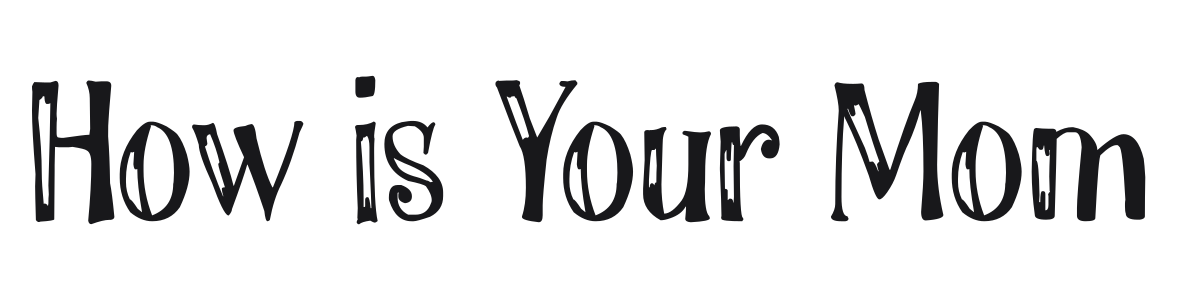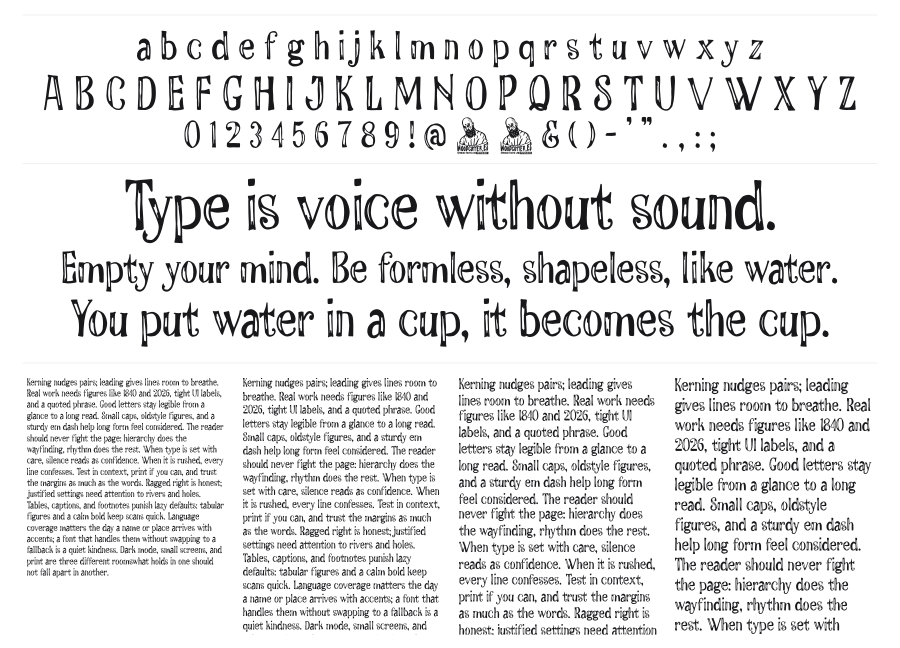
How is Your Mom
How is Your Mom is a distressed display serif from Woodcutter with rough, woodcut-printed edges and lively high-contrast strokes. Each character carries its own quirky proportions, giving the font an organic, hand-pressed quality that feels genuinely handmade rather than digitally simulated. It brings energy to posters, packaging, and any headline that needs a raw, expressive touch.